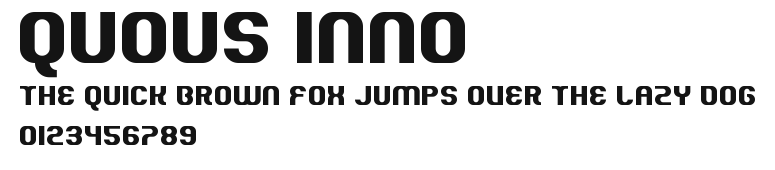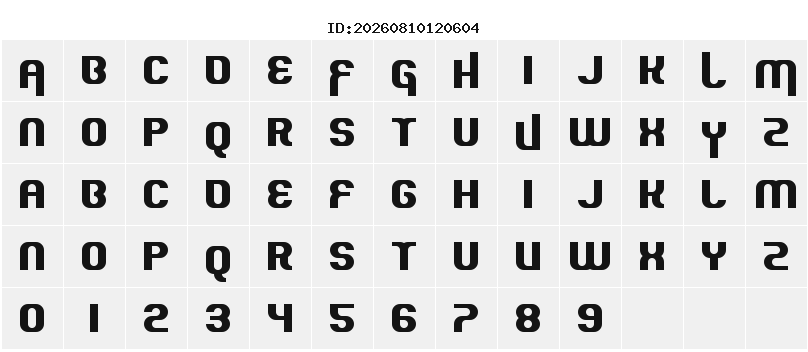
• Font Name: Quous Inno
• Font ID: FontStruct Quous Inno
• Full Font Name: Quous Inno Regular
• PostScript Name: Quous-Inno
• Character Count: 213
• Copyright: Copyright Andrew McCluskey 2011
• Designer: Andrew McCluskey
• Description: “Quous Inno” was built with FontStruct
Quous Inno.ttf is a modern, elegant sans-serif font designed for ultimate readability and visual harmony. Perfect for branding, headlines, web design, and print materials.